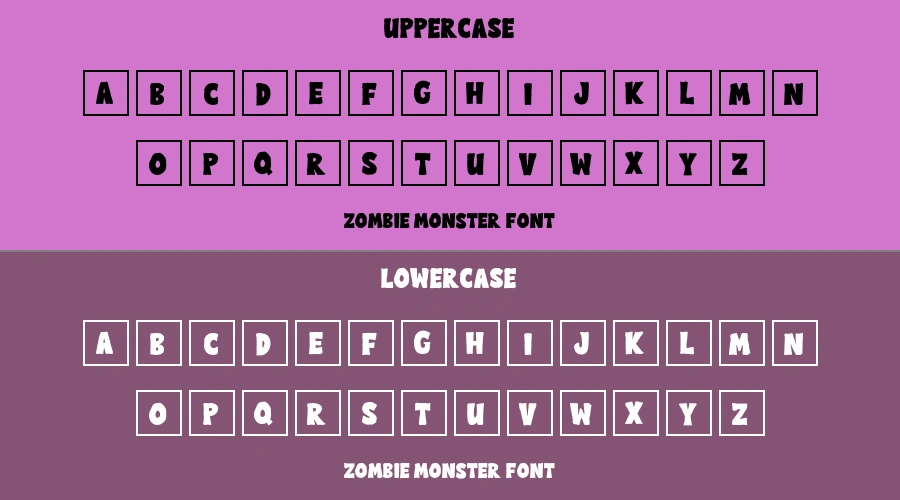
About Zombie Monster Font
Zombie Monster Font represents a sophisticated approach to type design, balancing precise joints with consistency. Perfect for heritage brands, this font family showcases impressive consistency and technical sophistication throughout its character set. Designers appreciate its versatility and reliability.
Designers will appreciate nuanced touches including clean corners and authentic details, adding sophistication to any project. These features become apparent in colophons, where detail retention matters most. The careful treatment of crossbar height and technical tradition ensures optimal performance.